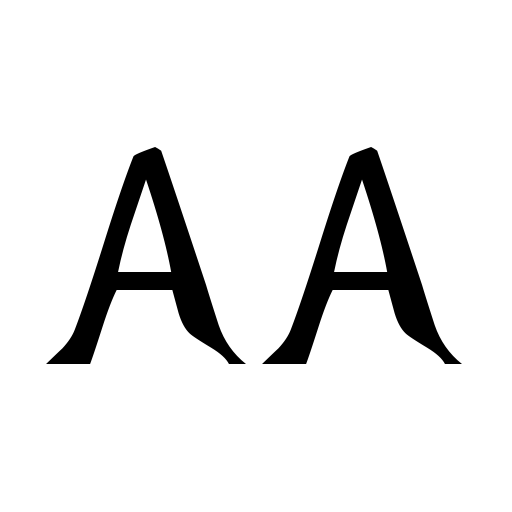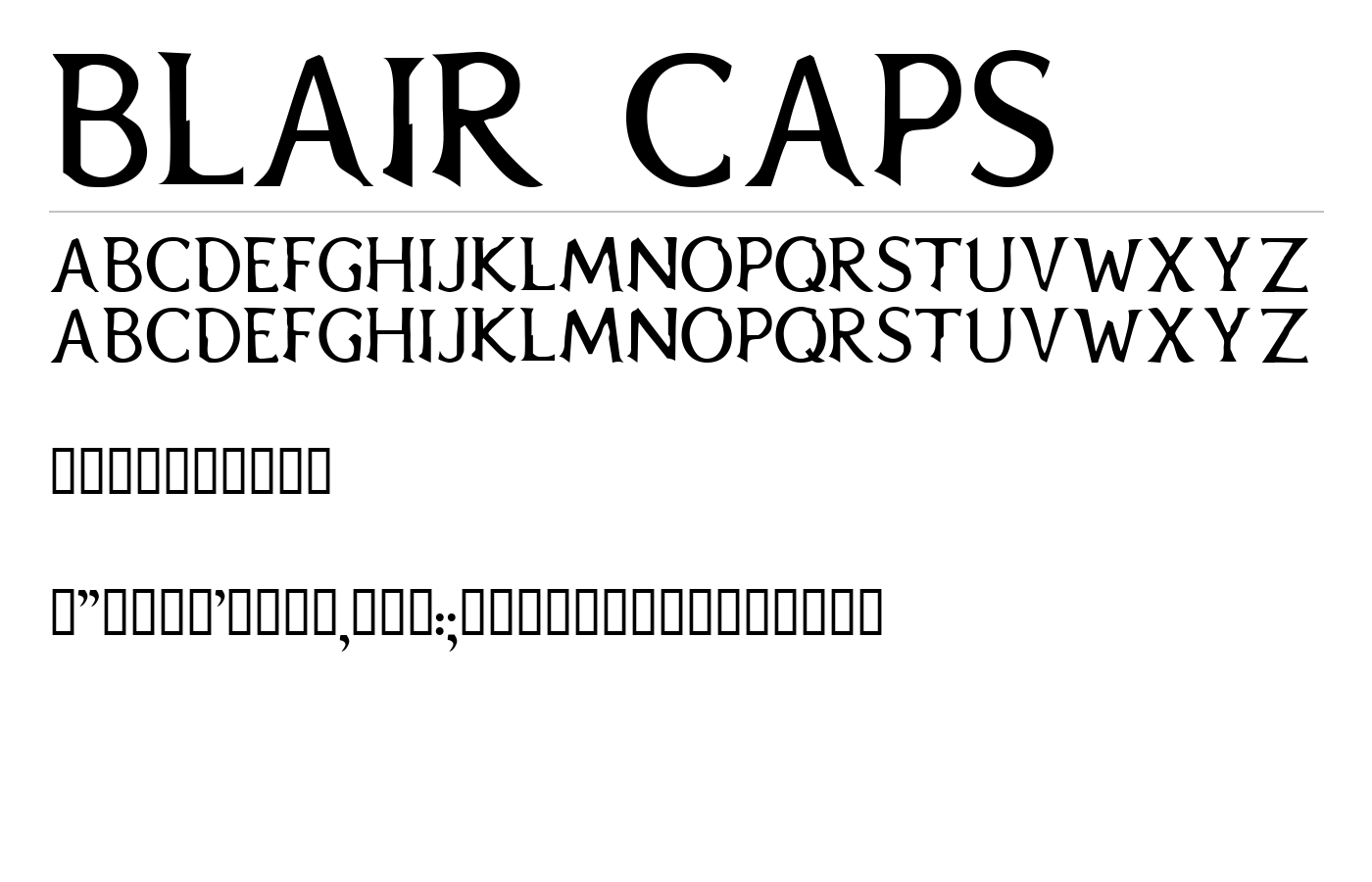
Blair Caps is a distinctive serif font with a slightly condensed width and medium stroke contrast, featuring sharp, bracketed serifs that evoke a classic yet artistic feel. This all-caps design stands out with its unique letterforms, such as angled terminals and a stylized R leg, giving it a vintage, elegant personality perfect for logos, headlines, and editorial projects that want a touch of sophistication and character. Its strong presence and clear shapes make it ideal for fashion branding, book covers, and any design seeking a refined yet bold statement.
Blair Caps Font